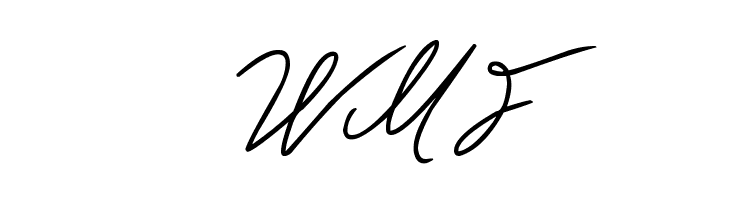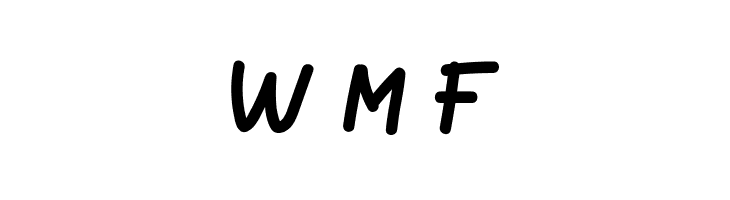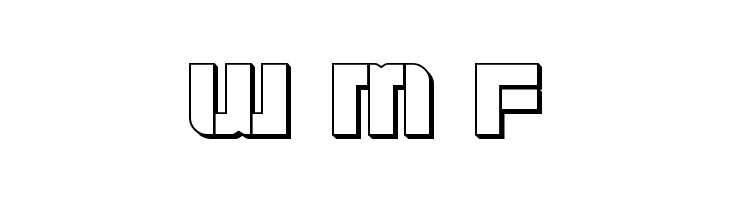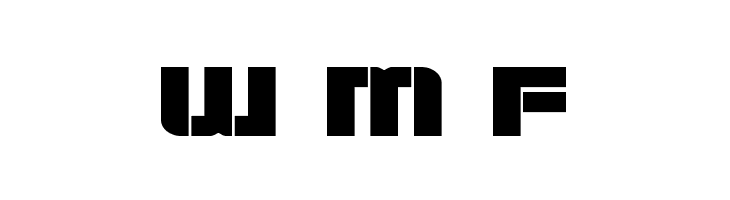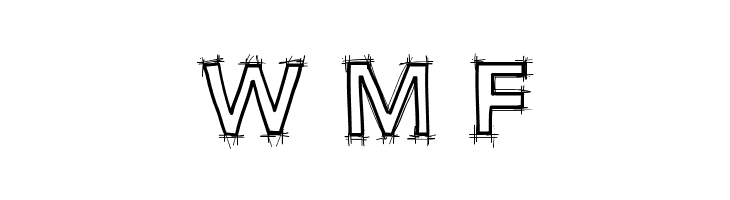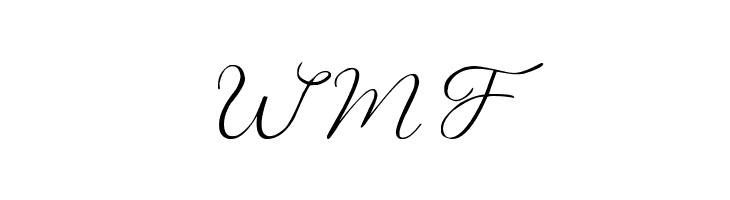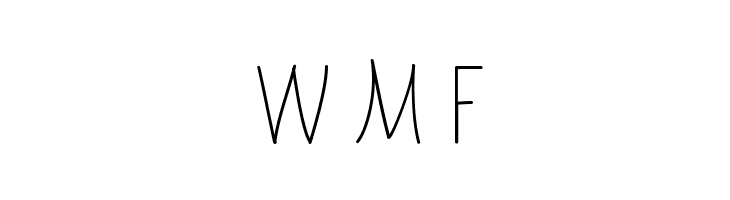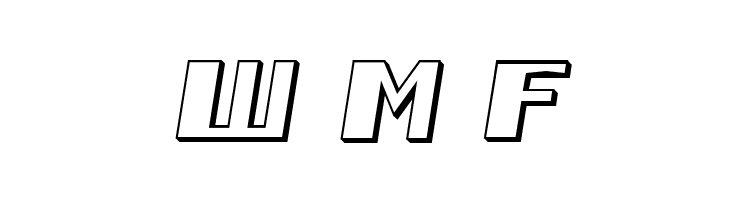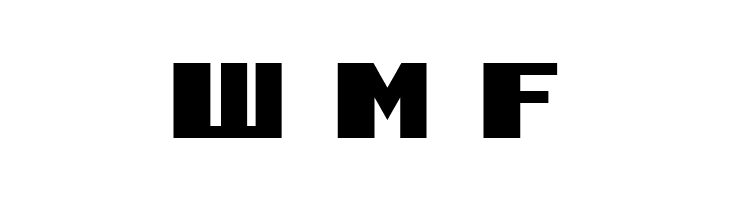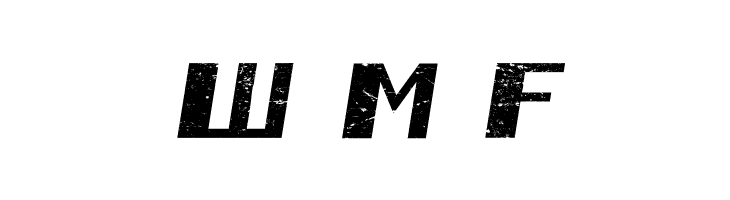
A bold, geometric 3D font with a futuristic, industrial style.
A bold, geometric font with a modern, industrial style and expanded width.
A bold, geometric, and condensed font with a modern, industrial aesthetic.
A blueprint-inspired font with sketch-like details and bold outlines.
A bold, playful font with a modern, slightly quirky style.
A whimsical collection of playful and enchanting dingbats featuring princess-themed symbols.
An elegant script font with flowing, interconnected letters and ornate flourishes.
A playful, handwritten font with tall, slender letters and a casual feel.
A playful, hand-drawn font with a casual and informal style.
A bold, geometric font with industrial and decorative elements.
Bold, shadowed, italic font with decorative elements and a dynamic style.
A bold, italic font with a geometric, decorative style ideal for impactful headlines.
A bold, grunge-style italic font with a distressed texture and decorative elements.
A bold, italic font with dynamic, blocky characters and decorative elements.
A bold, geometric font with a shadow effect and decorative elements.
A bold, monospaced font with uniform strokes and clear readability.
An elegant script font with intricate swirls and a classic calligraphic style.
A decorative font with characters embedded in ballerina illustrations.
A decorative font inspired by printed circuit board designs, featuring intricate line patterns.
A decorative font with a crinkled, wavy appearance for artistic projects.
A playful, curly font with a spring-like design, perfect for creative projects.
A bold, dynamic font with sharp, angular lines and high contrast, inspired by ancient scripts.
A playful, handwritten font with a casual and whimsical style.
A decorative font with princess illustrations for each uppercase letter.
A decorative font with bold letters integrated with porpoise illustrations.
A playful, wavy font resembling silly string with consistent stroke thickness.
A bold, cheetah print-inspired decorative font with medium contrast.
A decorative font with maze-like, geometric patterns in each character.
A modern, geometric font with unique cutouts and clean lines.
A bold, rounded font with thick strokes and a playful, assertive style.
A bold, geometric font with a modern and industrial feel.
A rough, hand-drawn font with a chalk-like texture and casual style.
A playful and dynamic handwritten font with fluid, slightly slanted letterforms.